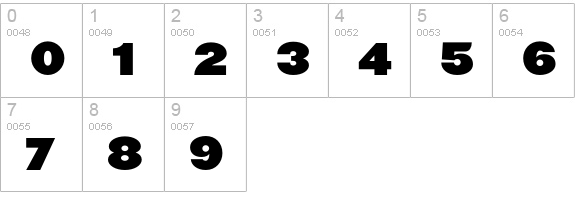
Champion-HTF-Heavyweight font is a bold and powerful typeface that commands attention with its strong and sturdy letterforms. Perfect for creating eye-catching headlines and impactful designs, this font exudes confidence and authority. Its thick strokes and clean lines give it a modern and professional look that makes it ideal for a wide range of projects. What makes Champion-HTF-Heavyweight font even more appealing is that it is available for free download at FontsMarket.com. This means that you can easily add this impressive font to your collection without any cost, making it a valuable asset for any designer or creative professional. Whether you're working on a poster, logo, website, or any other design project, Champion-HTF-Heavyweight font is sure to make a bold statement and leave a lasting impression. Download it today and unleash the power of this versatile and impactful typeface.